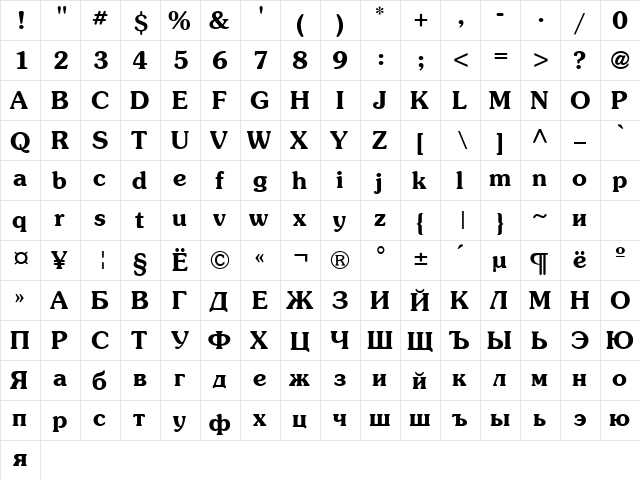
AGSouCyrillic Bold A
Design Context for AGSouCyrillic Typeface
AGSouCyrillic offers clean, dependable letterforms without strong stylistic allegiance, making it a practical choice for designers who need flexibility. Its bold stroke weight gives it real presence on the page.
Pro Tip: Pair AGSouCyrillic with a font of contrasting weight or personality to build a more expressive typographic hierarchy.